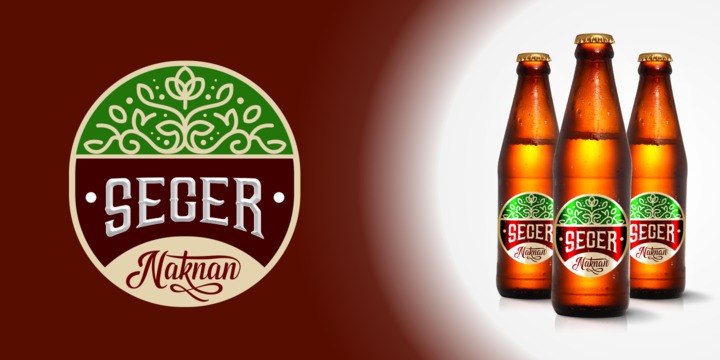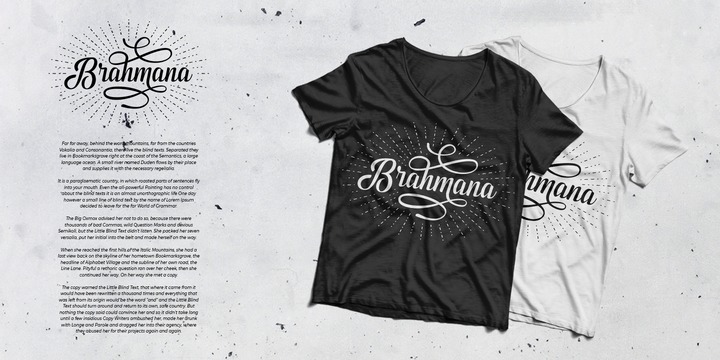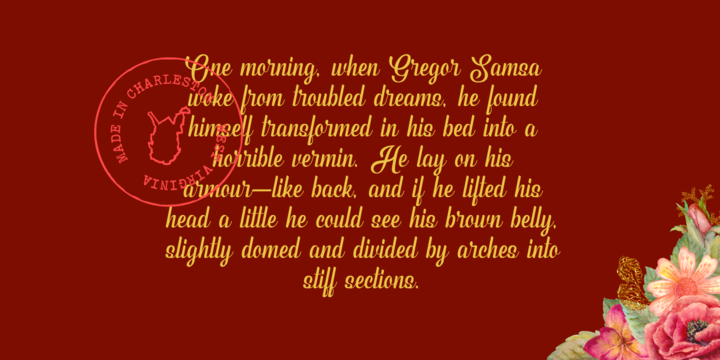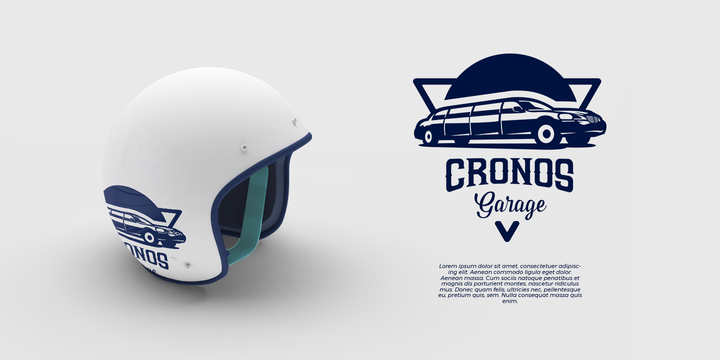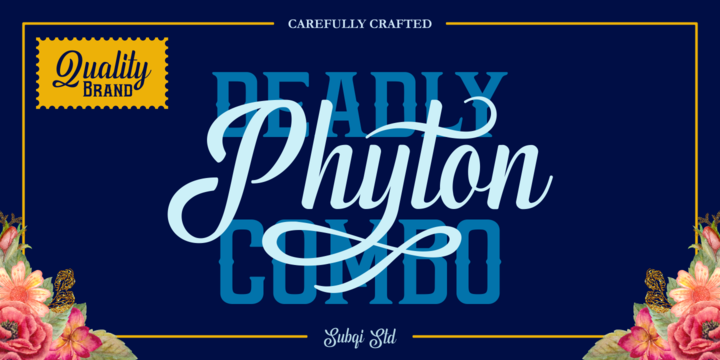
Phyton is a beautiful font combination between script and serif. With alternative character in both serif and script style with over 380+ glyphs for the script and 320+ glyphs for the serif.
Phyton will be great for your creative project such as wedding invitation, logo, header, card, packaging, label, badge, flyer and more.
Phyton comes with uppercase, lowercase, numeral, punctuation and support western multilingual accent as well.
With many additional alternative characters to play.